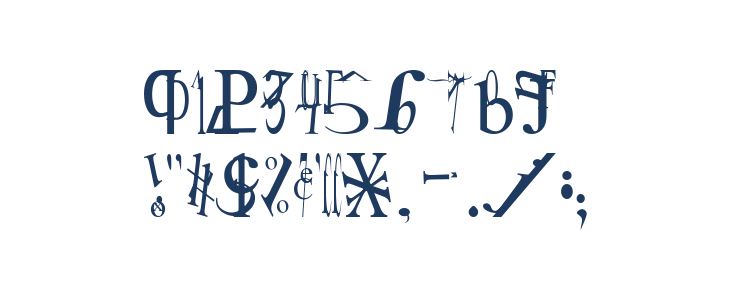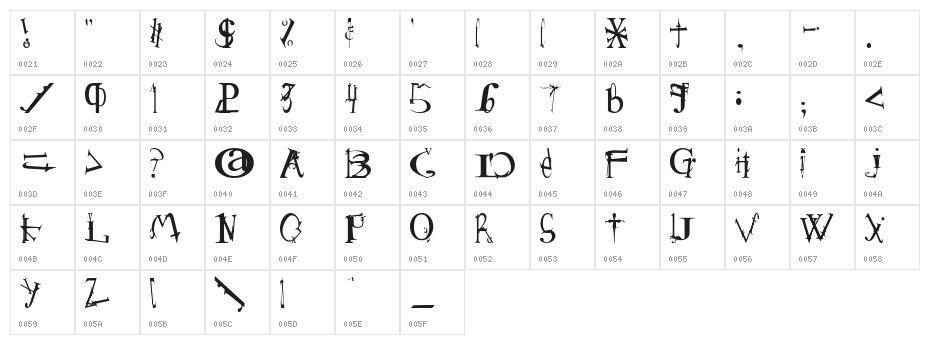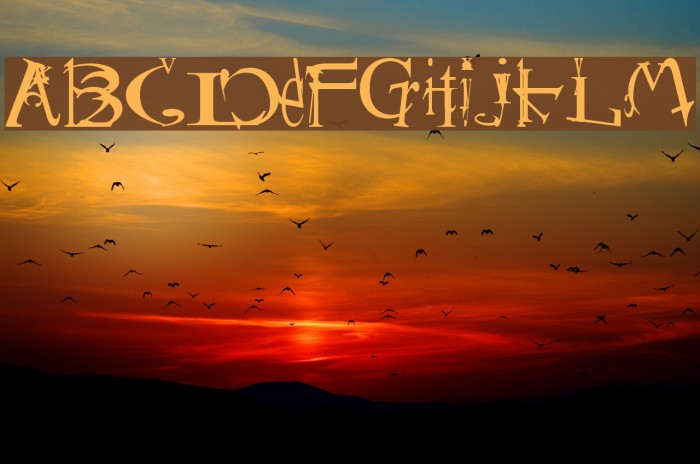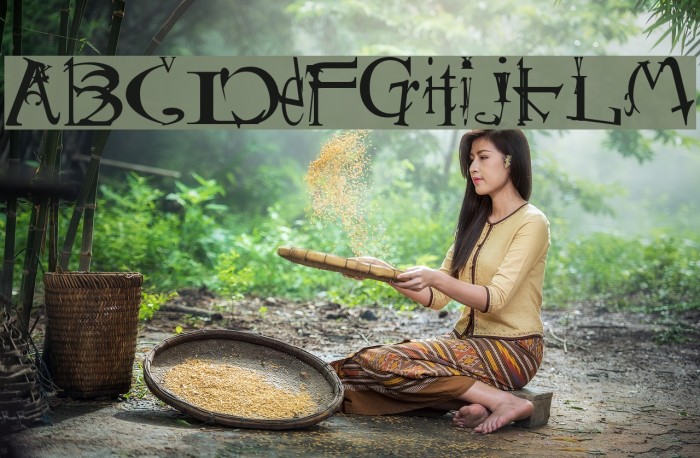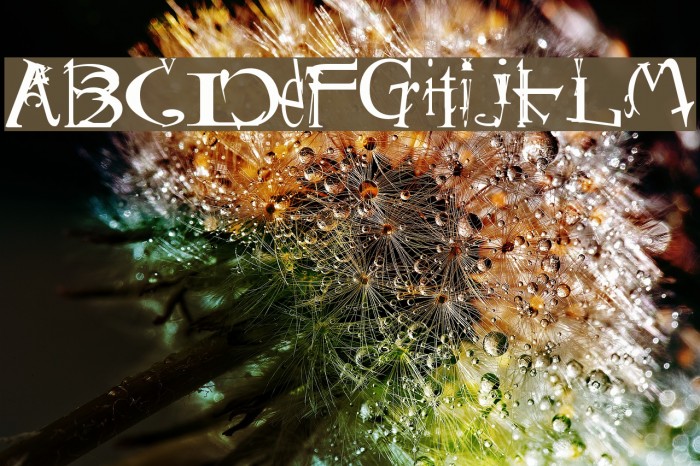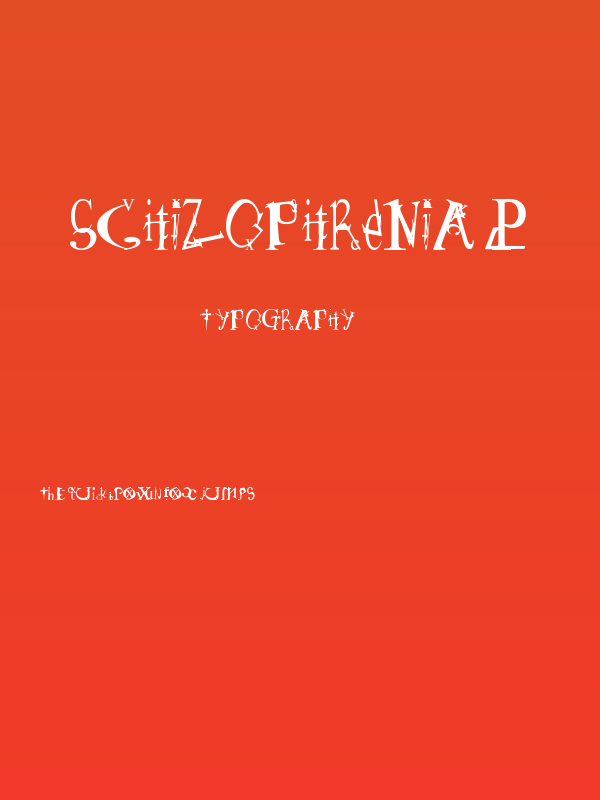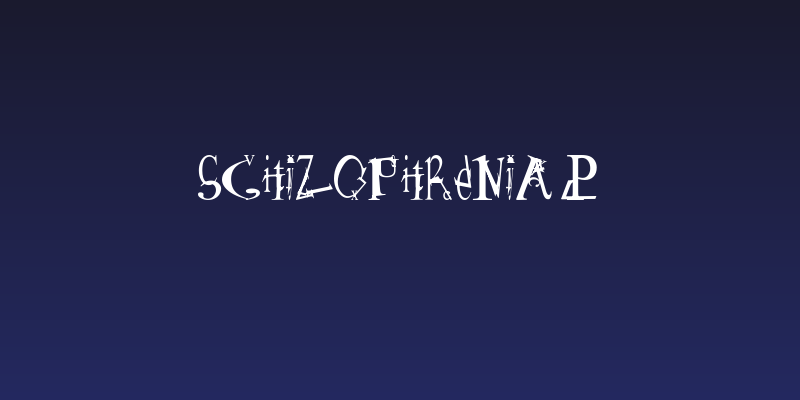
Schizophrenia 2 Font
Schizophrenia 2 Description
This font exhibits a highly decorative and chaotic style, characterized by its eclectic mix of shapes and forms. Each character is uniquely designed with varying strokes, often incorporating unexpected elements like spikes, swirls, and asymmetrical lines. The uppercase and lowercase letters maintain a consistent level of unpredictability, making it visually striking and unconventional. Numbers and special characters follow the same erratic design, contributing to the font's overall avant-garde appearance. The font's distinctiveness lies in its ability to convey a sense of disorder and creativity, making it suitable for projects that aim to stand out or convey a rebellious or artistic theme.
| Overall Style | Avant-garde, Artistic |
| Use Case | Logos, Posters, Artistic projects |
| Proposed Projects | Ideal for album covers, avant-garde posters, artistic branding, and any project requiring a bold, unconventional aesthetic. |